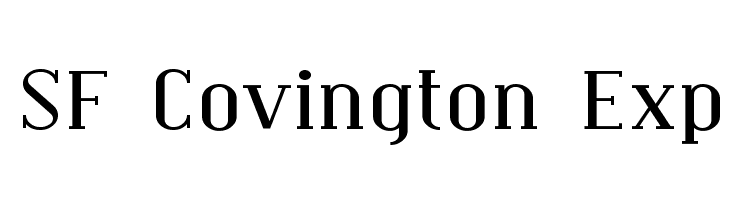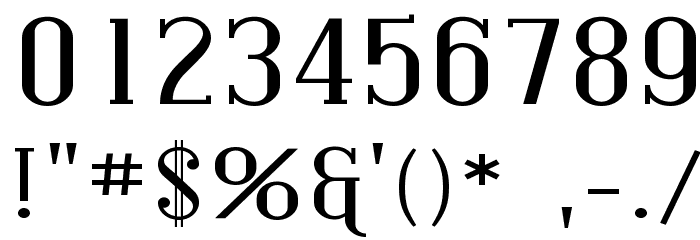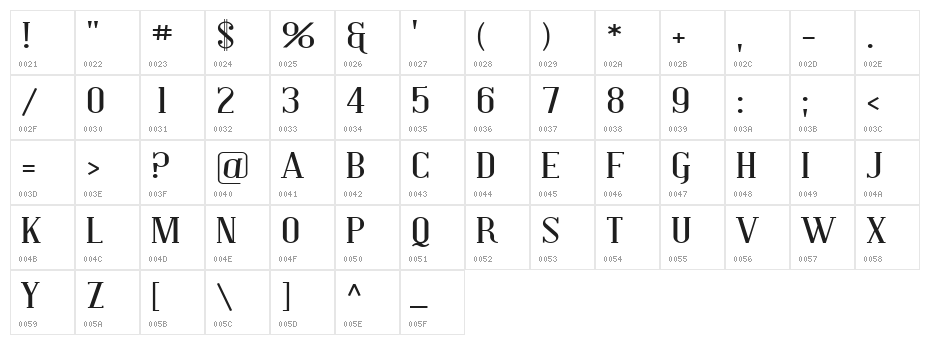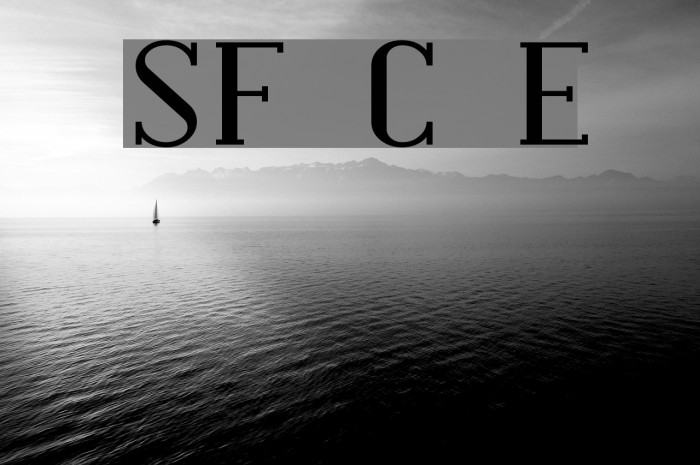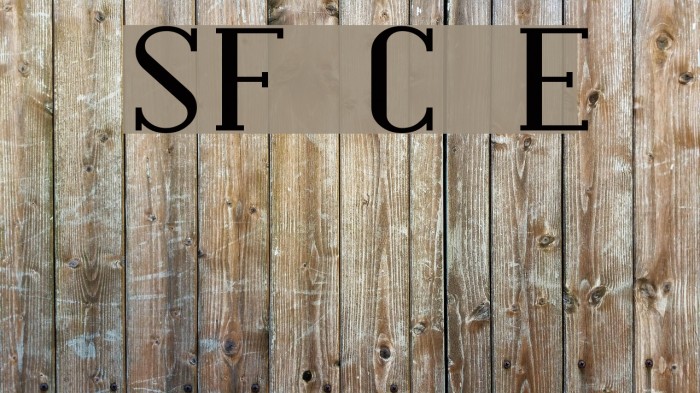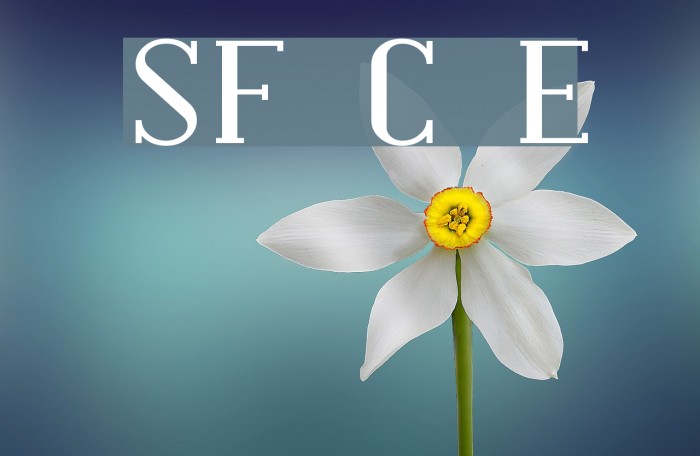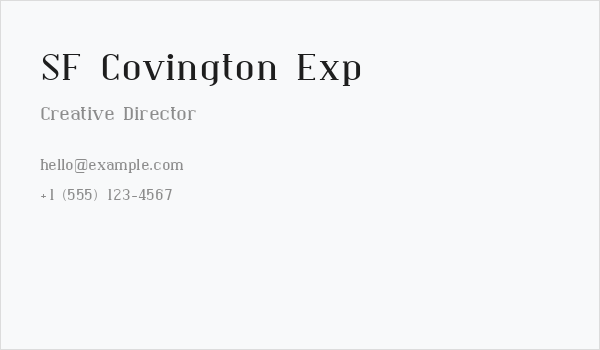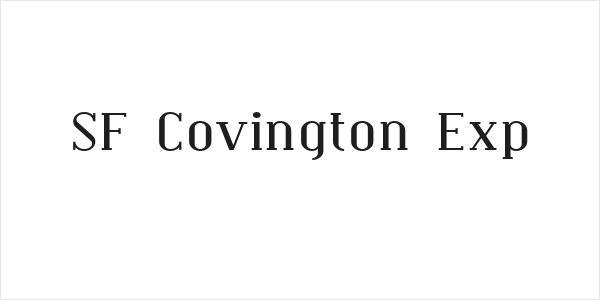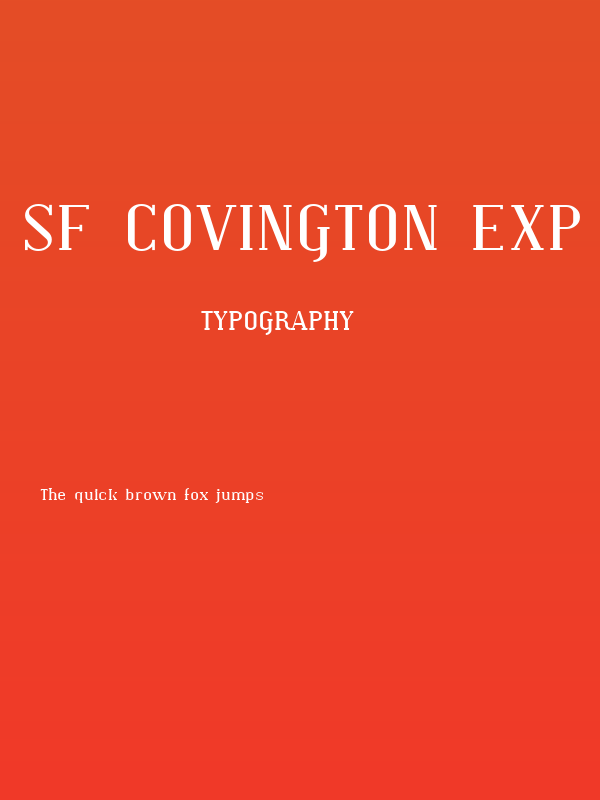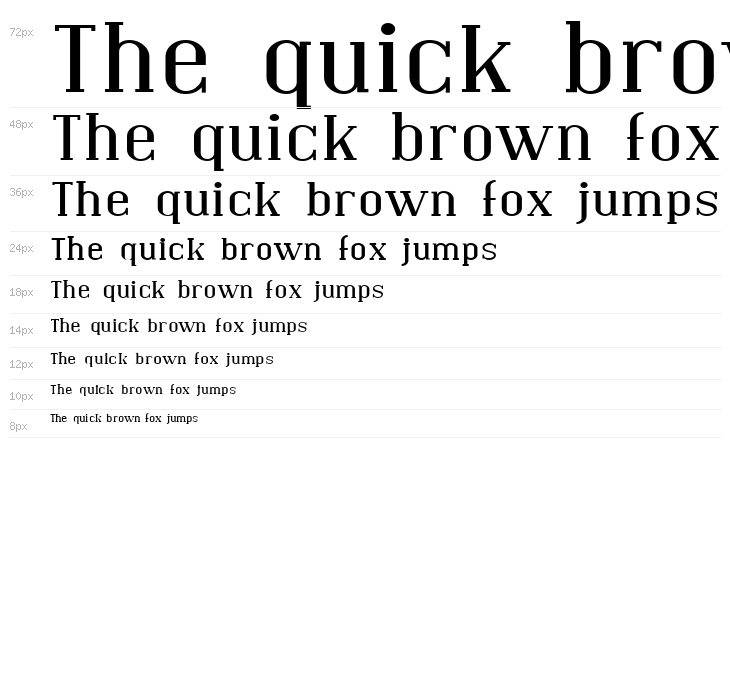
SF Covington Exp Font
SF Covington Exp Description
This font features a classic serif style with a modern twist, characterized by its elegant and refined letterforms. The uppercase letters are tall and commanding, with distinct serifs that add a touch of sophistication. The lowercase letters maintain a consistent style, offering a harmonious balance between traditional and contemporary design elements. The numerals are clear and legible, making them suitable for various applications. Special characters are well-integrated, enhancing the font's versatility. Overall, this font exudes a timeless appeal, making it ideal for projects that require a blend of elegance and readability.